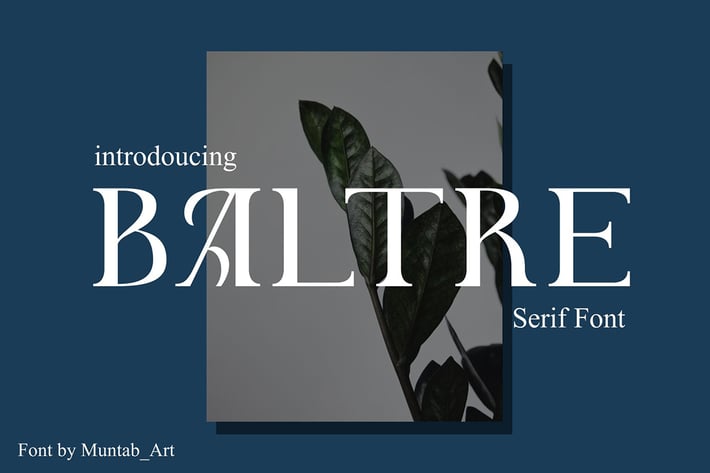
Baltre | Modern Serif Font
Baltre fonts includes uppercase letters, numerals, a large range of punctuation. Serif font with modern style. Created for poster, web design, branding, illustrations, badges and some other works.